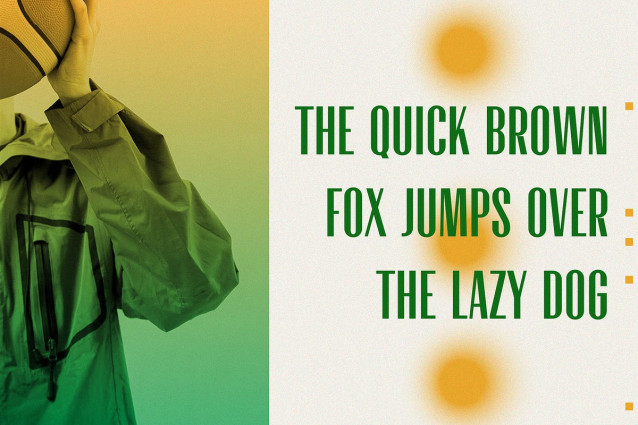
Partmedia Font
Partmedia Font – Display Condensed Sans, is a modern and simple font, best used as a display for headings, logos, branding, magazines, product packaging and invitations.